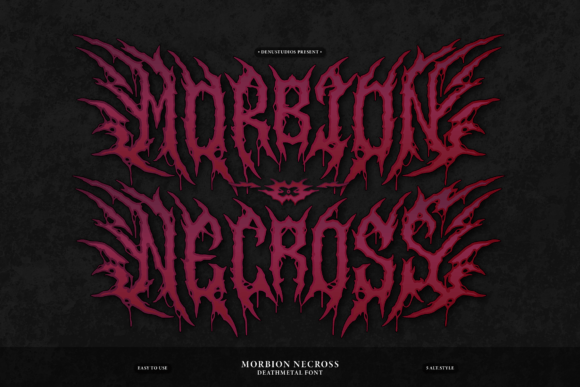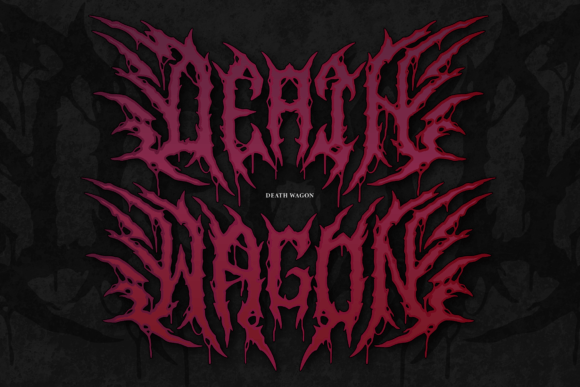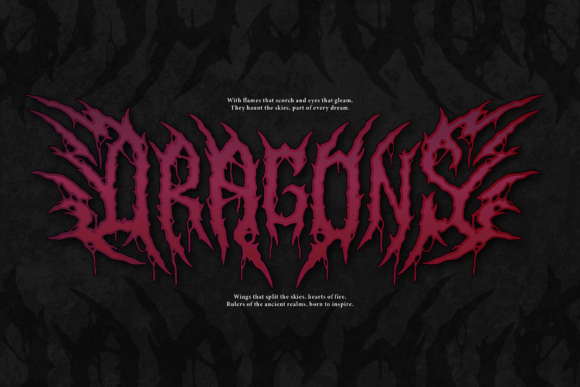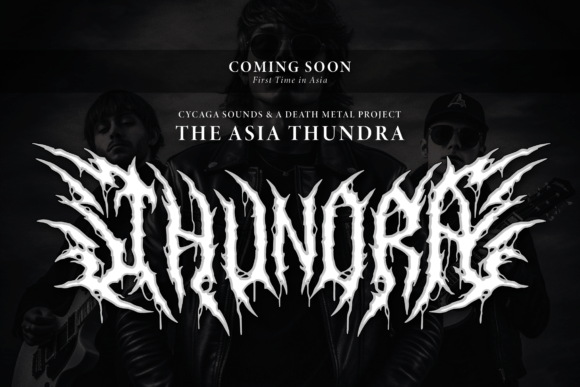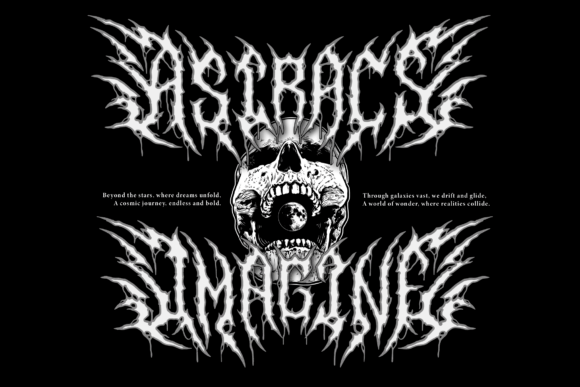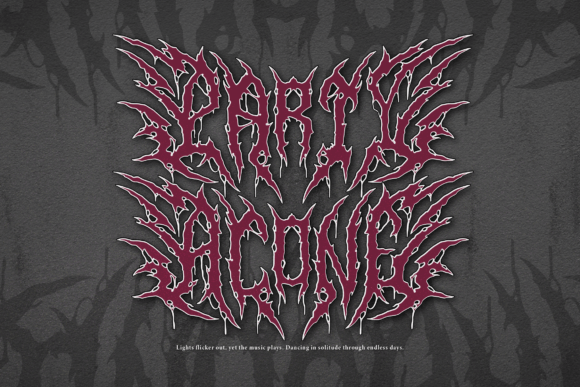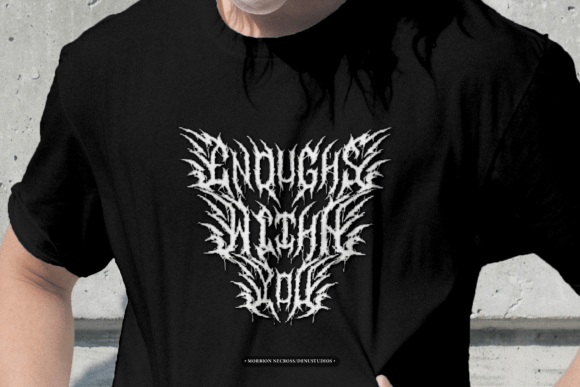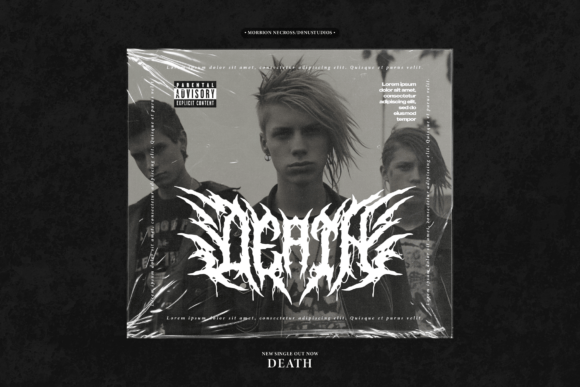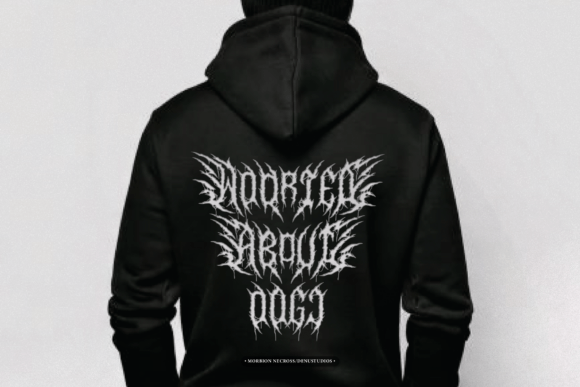
Morbion Necross Font
Morbion Necross is an intense death metal-inspired font designed for those who love heavy and aggressive designs. Its jagged, spiked edges and dripping details create a dark and brutal aesthetic, perfect for band logos, album covers, horror themes, and extreme branding. This font screams chaos, rebellion, and raw power, making it ideal for metalheads and gothic projects alike.